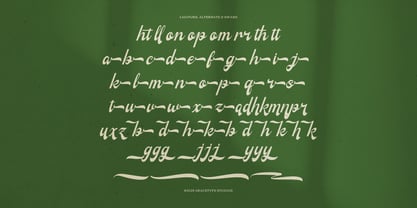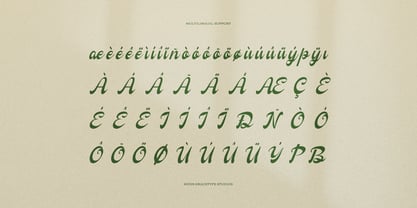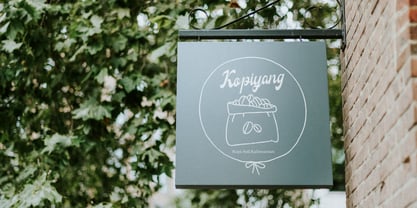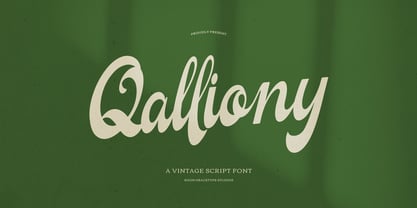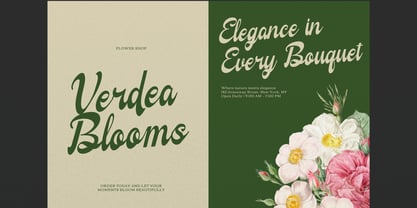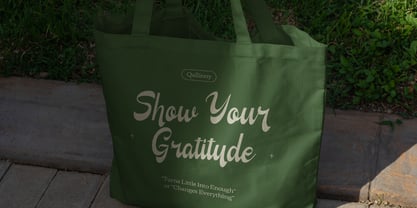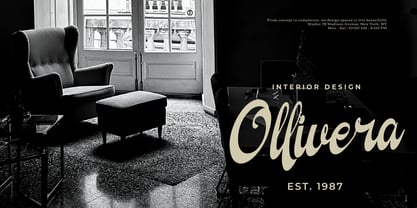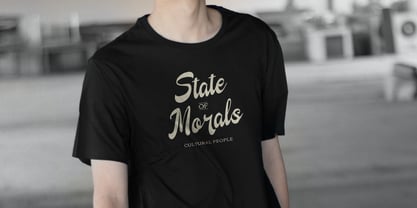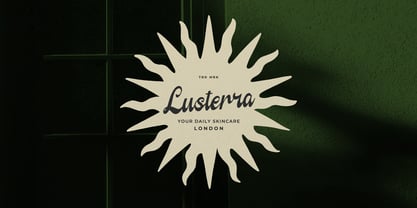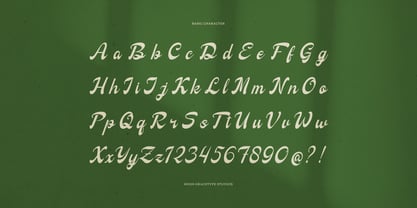
Qalliony
Qalliony | Vintage Script, from Gracetypestudio, suitable for any projects such as: logos, branding projects, homeware designs, product packaging, mugs, quotes, posters, shopping bags, t-shirts, book covers, name card, invitation cards, greeting cards, label, photography, watermark, special events, and all your other lovely projects that need a Vintage taste.